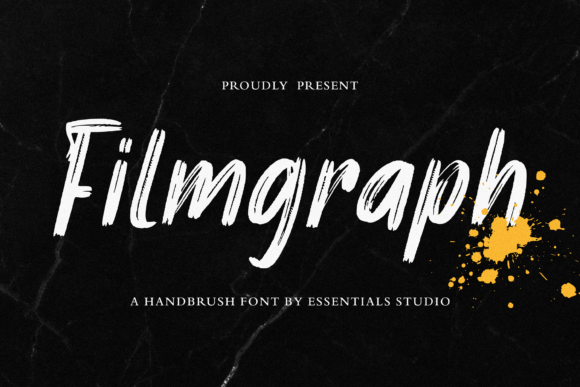
Embark on a visual journey with Filmgraph Font, a script font that breathes life into your creative projects. Prepare to be mesmerized by its elegant strokes and charming handwritten style, leaving an indelible mark on your designs.
Filmgraph Font is not just a font; it's an artistic expression that captures the essence of contemporary charm. Its modern and cool vibe adds a touch of sophistication to any project, whether it's a personal journal, a captivating social media post, or an eye-catching logo.
Step into a world where words dance with grace. Filmgraph Font's delightful curves and playful ligatures create a visual symphony that captivates the senses. Each letter is crafted with meticulous attention to detail, ensuring that your message is conveyed with elegance and impact.
Unleash your creativity with Filmgraph Font and watch as your designs transform into captivating masterpieces. Its versatility knows no bounds, adapting seamlessly to a wide range of projects, from heartfelt love letters to bold marketing campaigns.
Experience the beauty of handwritten typography with Filmgraph Font. Its natural, free-flowing style evokes a sense of authenticity and warmth, drawing your audience in and leaving them captivated by your message.
Join the ranks of creative visionaries who have discovered the magic of Filmgraph Font. Let your imagination soar as you create designs that resonate with your audience, leaving a lasting impression that lingers long after the first encounter.
Don't settle for ordinary fonts. Embrace the extraordinary with Filmgraph Font and elevate your creative endeavors to new heights. Let your designs speak volumes with a font that embodies elegance, charm, and personality.